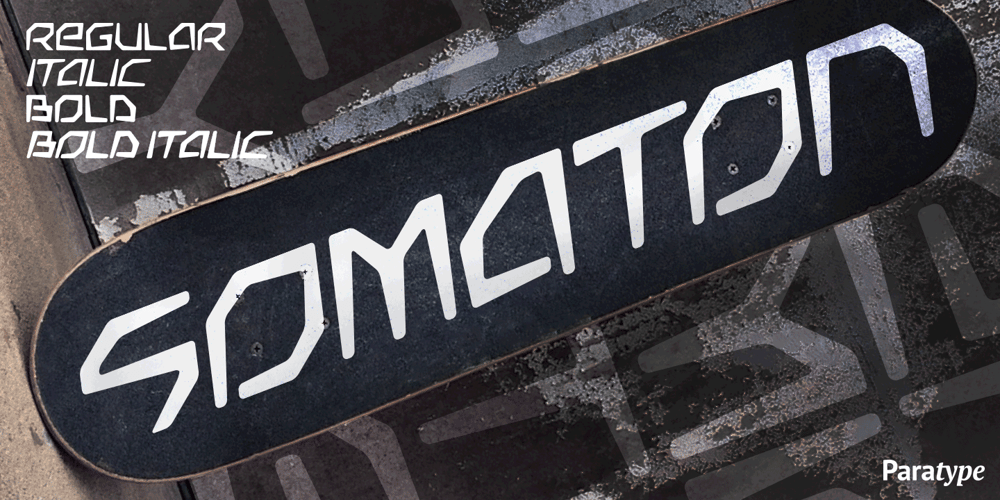
Somaton Font Family was designed by Vladlen Erium and published by ParaType. Somaton contains 4 styles and family package options. This original display family was designed by Vladlen Erium in 2000 for advertising and display typography, especially for advertising of teenage goods and services. The caps-only face has modern letterforms, dynamic slanted styles, and stable upright ones. It is very useful for creating a memorable product image.